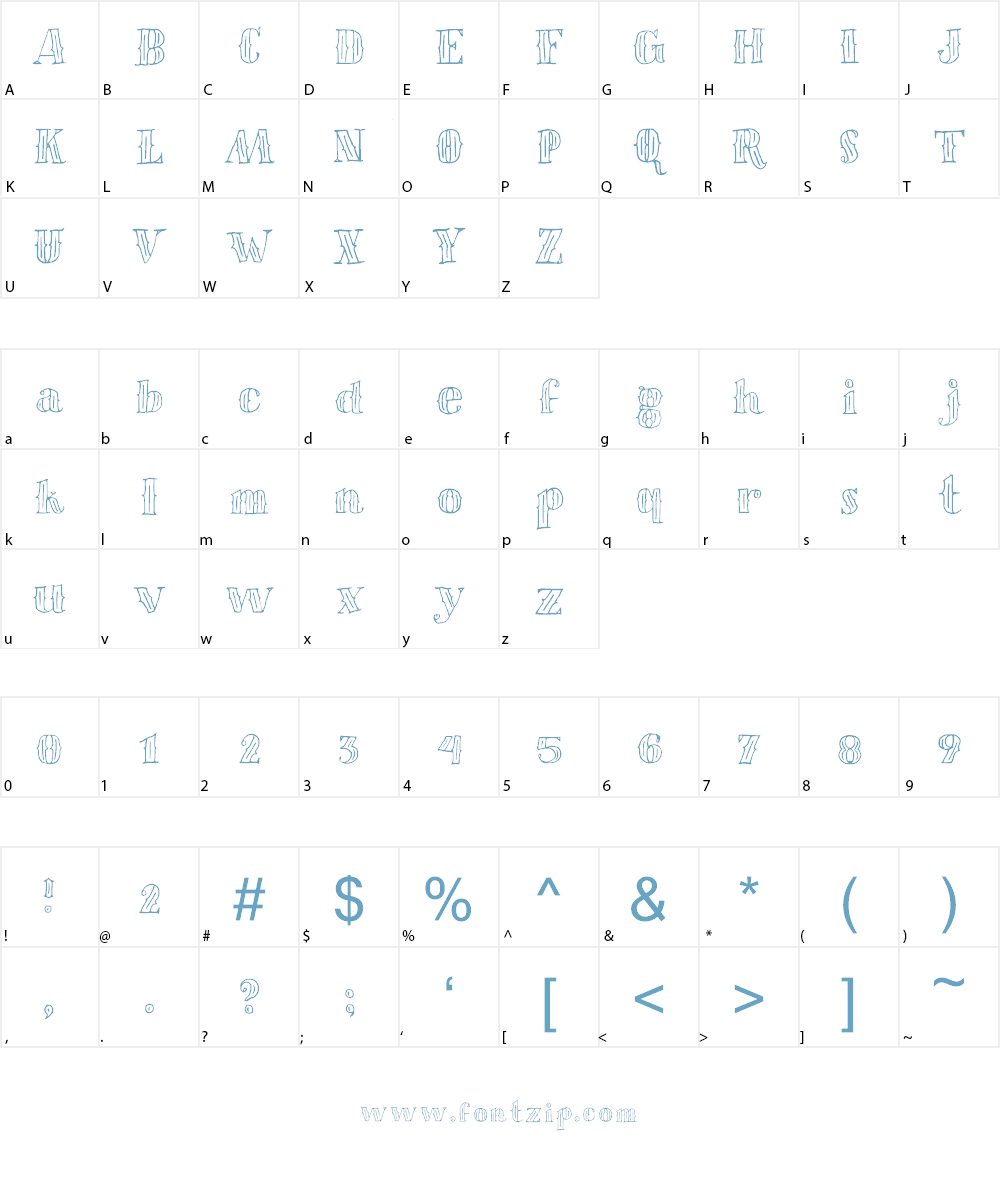
I recommend this font for children's book projects and event invitations. It's a light, whimsical font that can also be used on commercial designs. Kindly attribute "calej" and / or link my site http://calej.blogspot.com if you use it on your projects. Thanks!